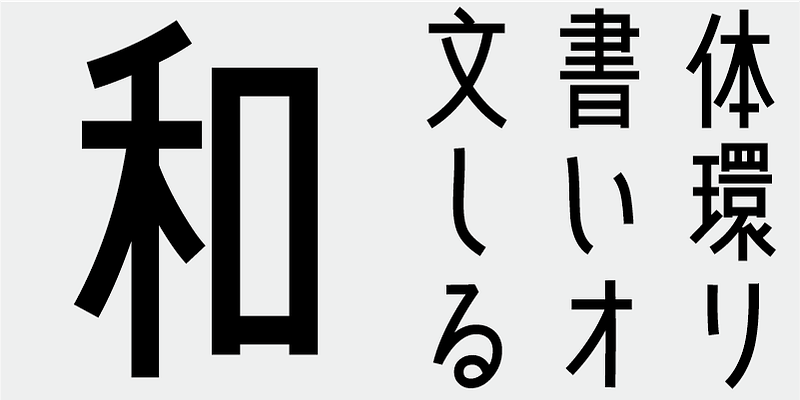
AB Clip Medium Font Free Download is a bold and playful Japanese-style display typeface characterized by its cut-out aesthetic and clean geometric forms. With its medium weight and distinctive visual rhythm, this font is ideal for eye-catching posters, packaging, signage, children’s content, and branding that leans toward fun, creativity, and visual clarity.
The “Clip” style gives the font a unique, modern identity—each character appears as if it’s been crafted with precision scissors or stenciled with intention. AB Clip Medium strikes a balance between structure and charm, making it suitable for both casual and professional design projects that want to stand out while maintaining readability.